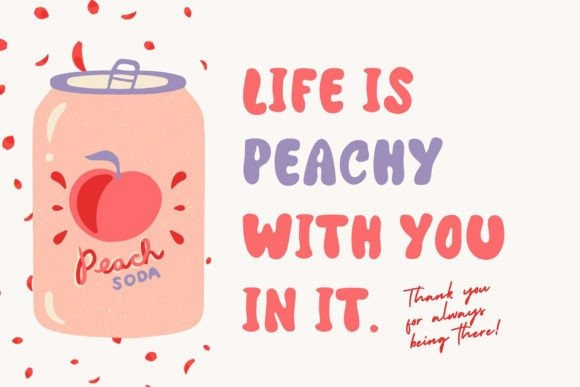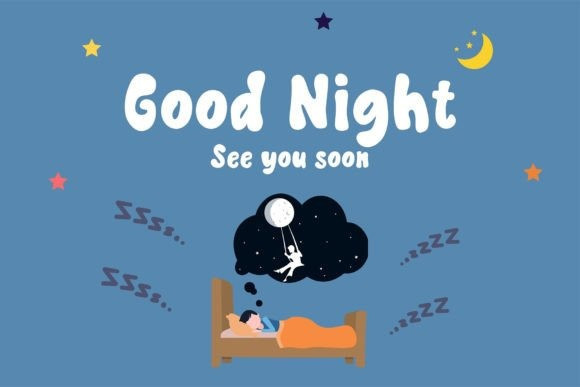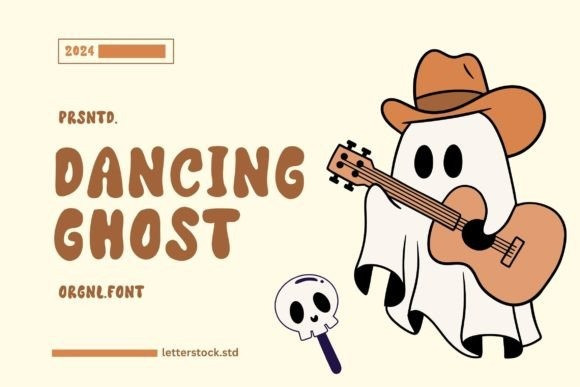
Dancing Ghost Font
Dancing Ghost Font a font crafted with original hand-drawn artistry and adorned with a bubbly style. Perfect for adding a touch of playfulness to your designs, this font is ideal for posters, invitations, and branding materials, infusing them with an enchanting aura.